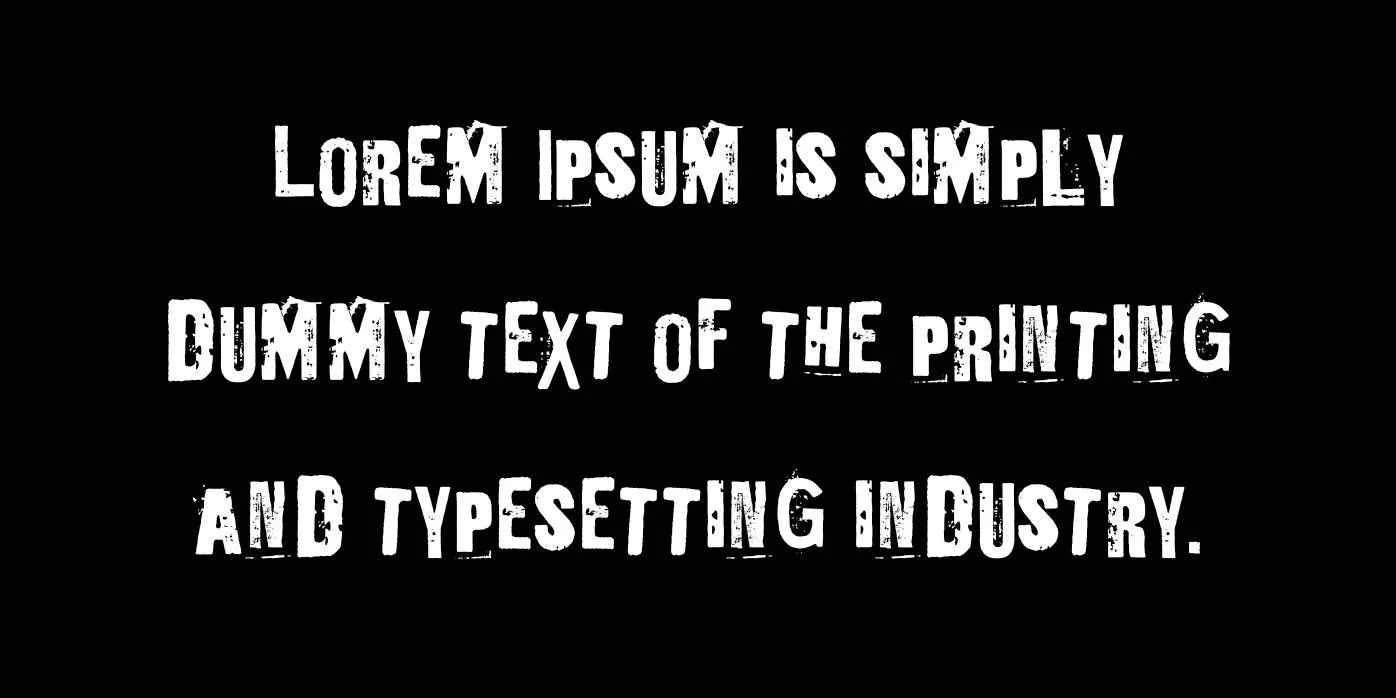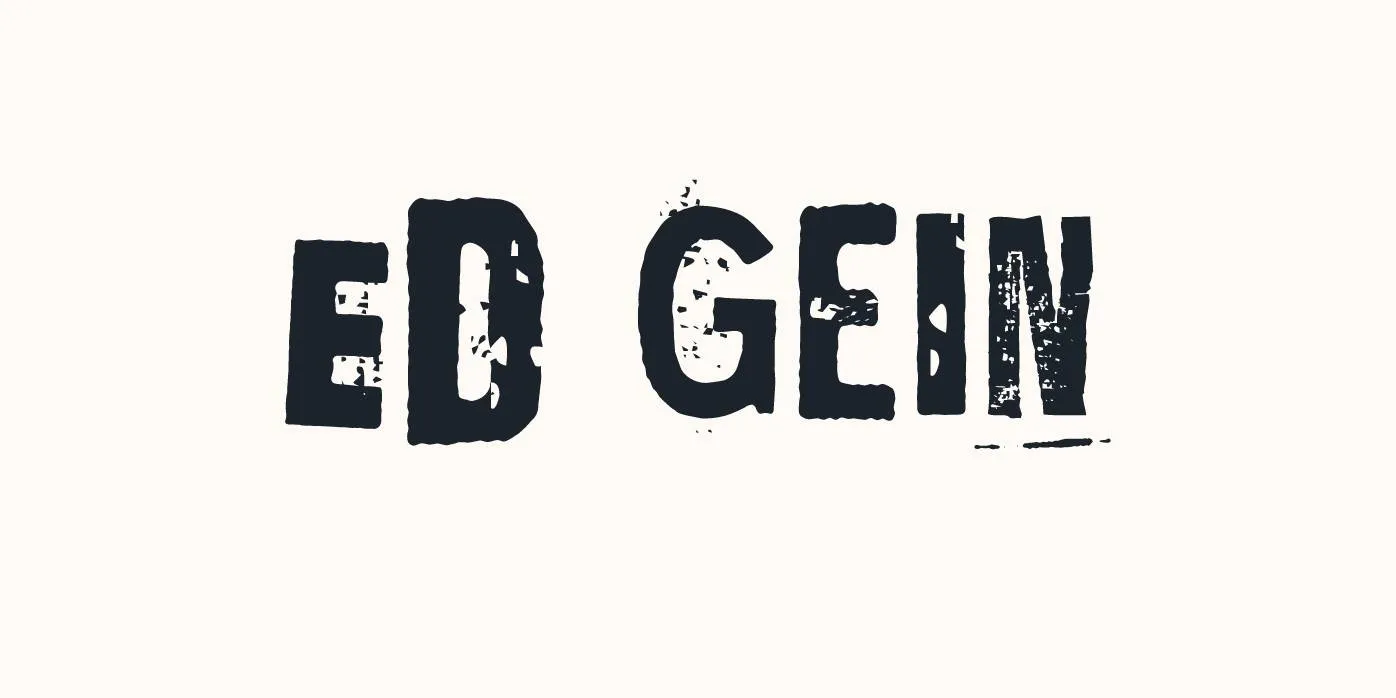
Ed Gein Font
Ed Gein Font is a famous texture that was designed by a British Designer Bumbayo Font Fabric in 1982. It contains 122 characters, 114 glyphs, and 1000 units per Em. Unicode supported 2.0 and BMP only. Embedding rights are allowed for the permanent installation of this font.
The weight of the font is Bold and the width of the font is Semi-condensed. The design of this font is regular. It can be paired with other fonts like yourladies font to give a more attractive look to your projects. An online generator tool is also used for this font to change simple text into a stylish and beautiful look.
This font has a sharp look and can be used for paring and copy-paste functions. This font can also be used for advertisements of different brands and branding purposes. It is a good choice for making logos of different brands. You can also use this font for graphic design.